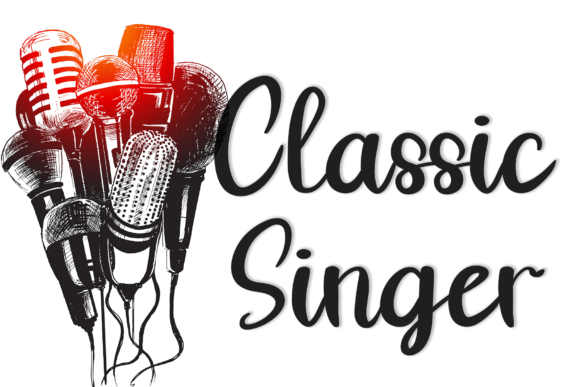
Introducing Blur Retro Font: The Sweet and Cursive Handwritten Font for Your Design Needs
In the world of typography, fonts play a crucial role in conveying the tone and personality of a design. If you’re looking for a font that exudes joy, romance, and elegance, look no further than Blur Retro Font. This sweet and cursive handwritten font is perfect for adding a touch of sophistication and whimsy to your designs. In this article, we’ll explore the features and benefits of Blur Retro Font and how it can elevate your design projects.
What is Blur Retro Font?
Blur Retro Font is a beautiful, cursive handwritten font that is designed to add a touch of elegance and romance to your designs. Its gentle and flowing curves make it perfect for a variety of design applications, from branding and logos to wedding materials and greeting cards. The font’s unique blend of classic and modern elements gives it a distinctive look that is sure to capture attention.
Key Features of Blur Retro Font
Handwritten and Cursive
Blur Retro Font is a handwritten and cursive font, which gives it a personal and intimate feel. Its flowing curves and connected letters make it perfect for designs that require a touch of elegance and sophistication.
Sweet and Romantic
The font’s sweet and romantic tone makes it perfect for designs that require a touch of whimsy and playfulness. Whether you’re designing a wedding invitation or a greeting card, Blur Retro Font is sure to add a touch of romance and charm.
Versatile and Flexible
Blur Retro Font is a versatile font that can be used for a variety of design applications. Its flexibility makes it perfect for designs that require a touch of elegance and sophistication, from branding and logos to marketing materials and lookbooks.
Benefits of Using Blur Retro Font
Elegant and Sophisticated
Blur Retro Font adds an elegant and sophisticated touch to your designs, making it perfect for high-end branding and marketing materials.
Unique and Distinctive
The font’s unique blend of classic and modern elements gives it a distinctive look that is sure to capture attention and set your designs apart from the competition.
Easy to Read
Blur Retro Font is easy to read, making it perfect for designs that require a clear and concise message.
Design Ideas for Blur Retro Font
Branding and Logos
Blur Retro Font is perfect for branding and logos that require a touch of elegance and sophistication. Its unique and distinctive look makes it perfect for businesses that want to stand out from the competition.
Wedding Materials
The font’s romantic and whimsical tone makes it perfect for wedding materials, such as invitations, programs, and place cards.
Greeting Cards
Blur Retro Font is perfect for greeting cards that require a touch of elegance and sophistication. Its sweet and romantic tone makes it perfect for special occasions, such as birthdays, anniversaries, and holidays.
Marketing Materials
The font’s versatility and flexibility make it perfect for marketing materials, such as brochures, flyers, and lookbooks.
Tips for Using Blur Retro Font
Pair it with Other Fonts
Blur Retro Font can be paired with other fonts to create a unique and distinctive look. Try pairing it with a bold and modern font for a striking contrast.
Use it in Combination with Images
The font’s elegant and sophisticated tone makes it perfect for use in combination with images. Try using it with a beautiful photograph or illustration to create a stunning design.
Experiment with Colors
Blur Retro Font looks great in a variety of colors. Try experimenting with different colors to find the one that works best for your design.
Blur Retro Font is a beautiful and versatile font that is perfect for adding a touch of elegance and sophistication to your designs. Its unique blend of classic and modern elements gives it a distinctive look that is sure to capture attention. Whether you’re designing a branding material, wedding invitation, or greeting card, Blur Retro Font is sure to add a touch of romance and whimsy to your design.